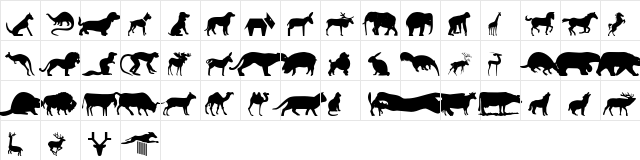
wmanimals2 Regular
Design Context for wmanimals2
wmanimals2 is a composed and adaptable typeface that performs quietly and consistently across a wide range of design contexts.